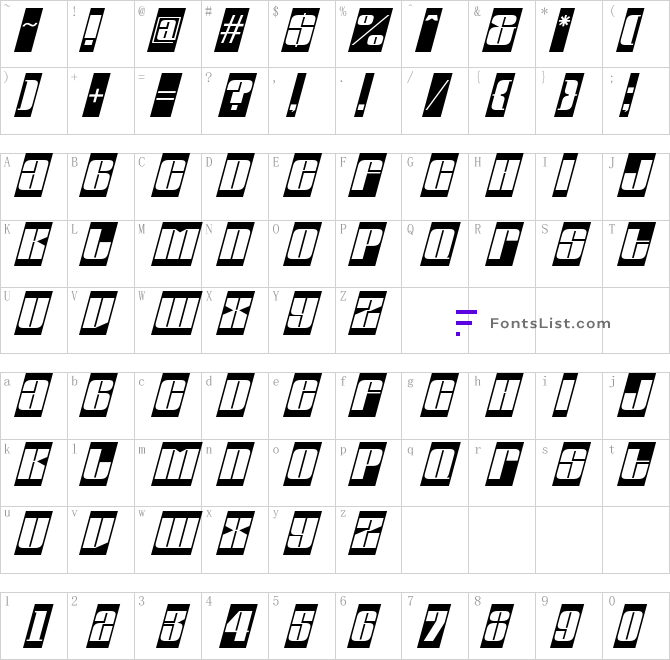
- Font Name:a_GlobusCmObl
a_GlobusCmObl-Italic.ttf is a very beautiful artistic font, a_GlobusCmObl-Italic.ttf is widely used in the design and printing of various books and pictures,a_GlobusCmObl-Italic.ttf has a strong visual impact,a_GlobusCmObl-Italic.ttf is a commonly used font in newspapers, magazines and books, and is used in posters, e-commerce Poster design, store design, logo design, font design and other fields.a_GlobusCmObl-Italic.